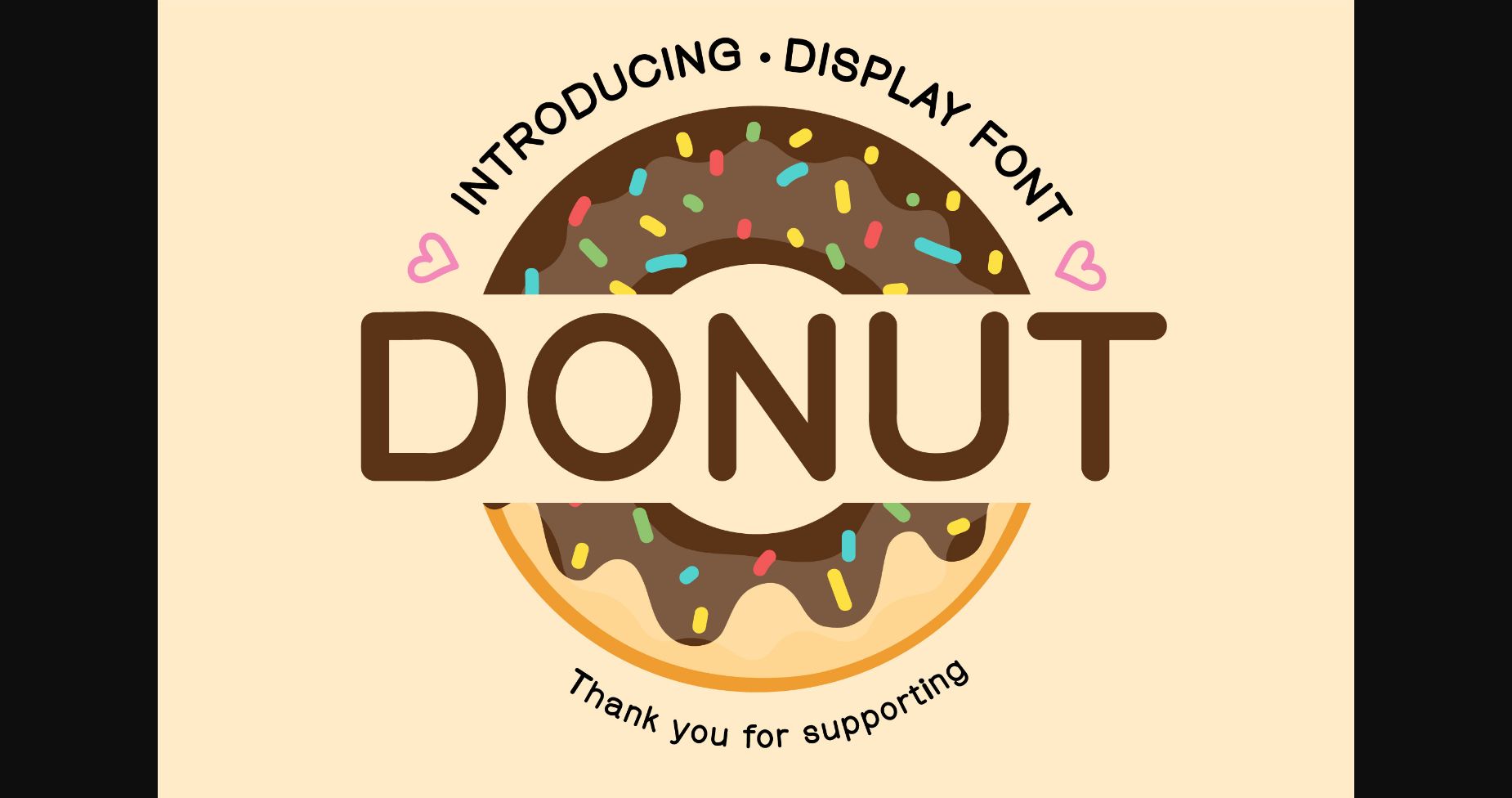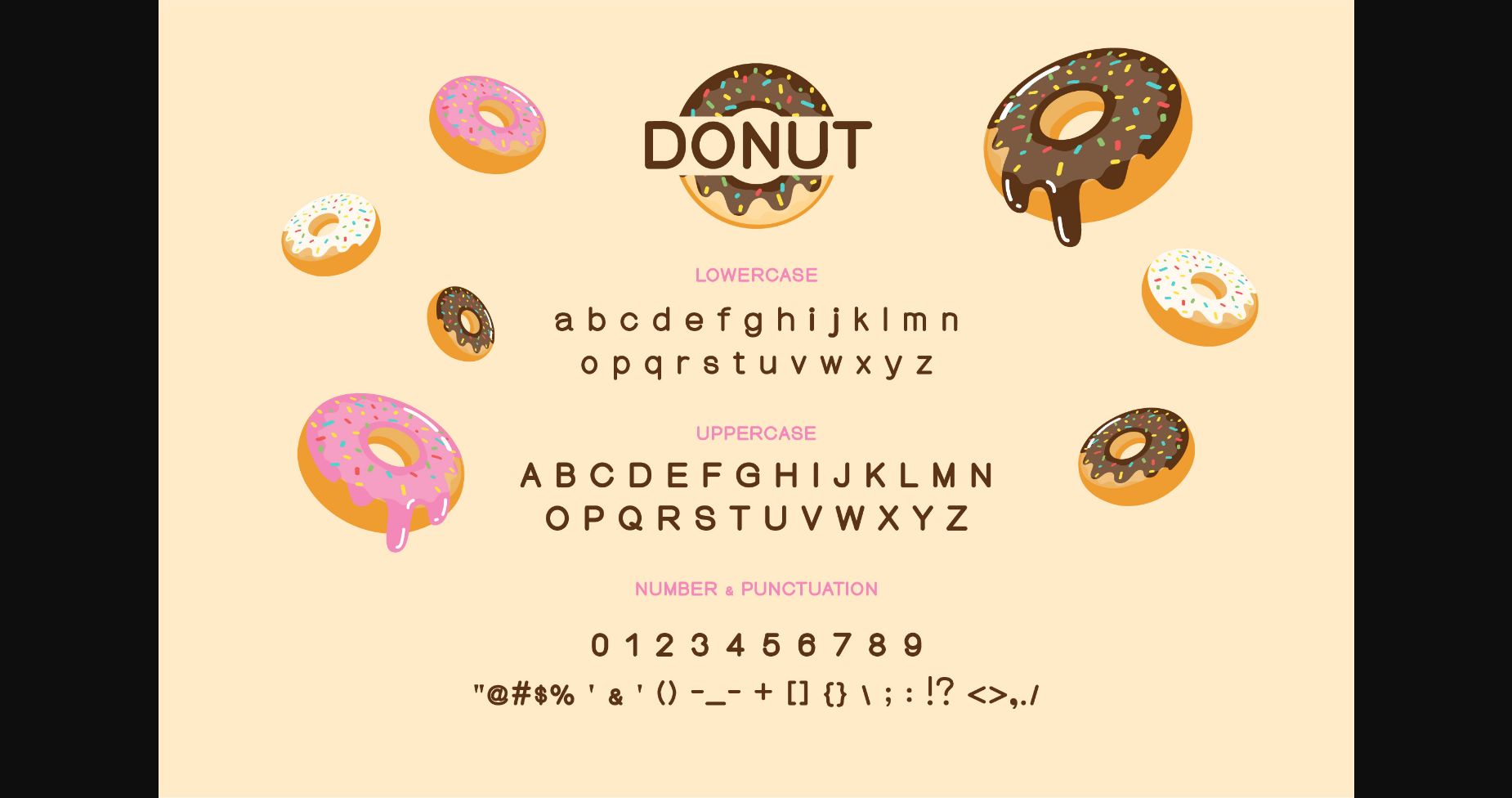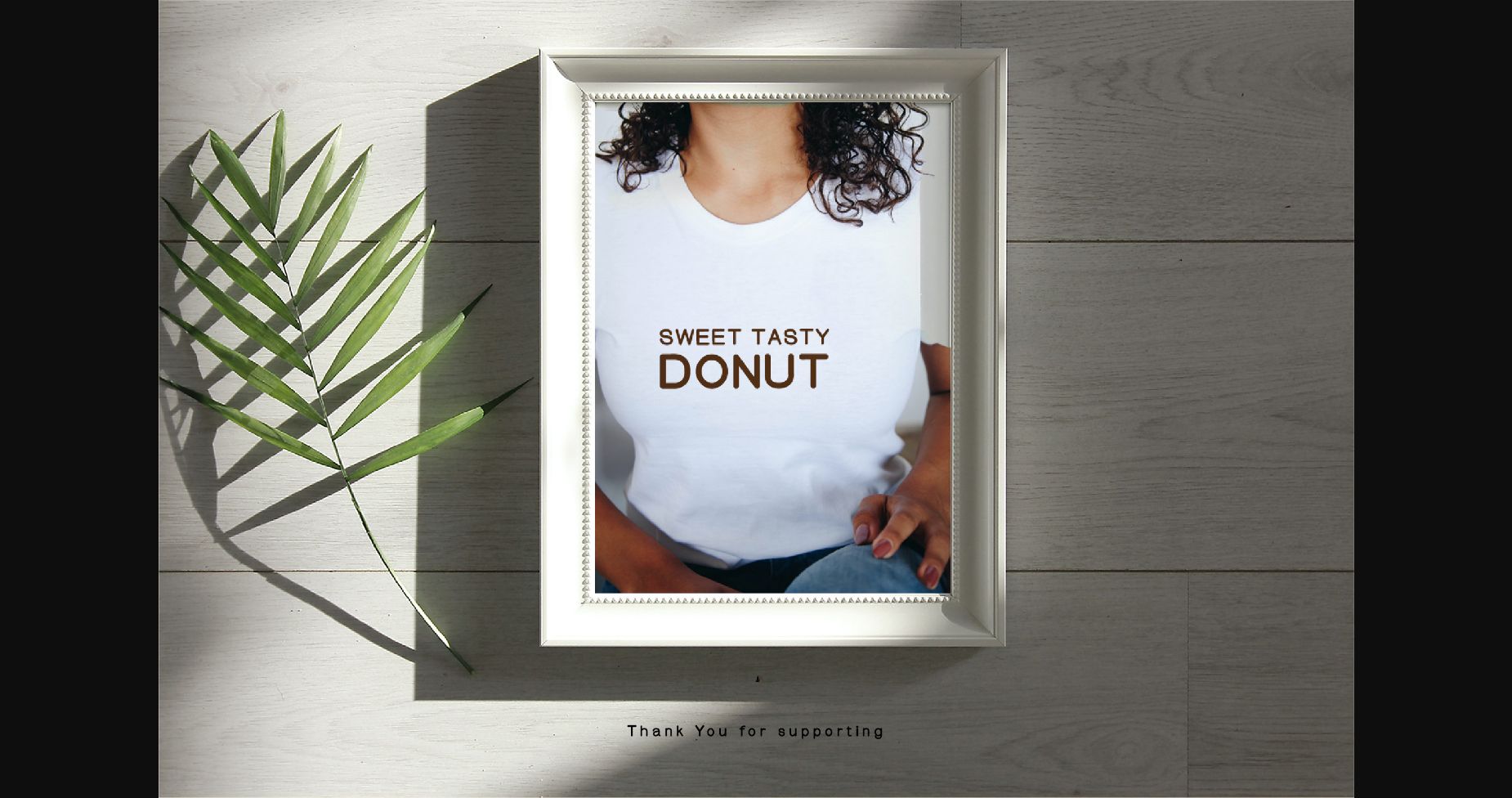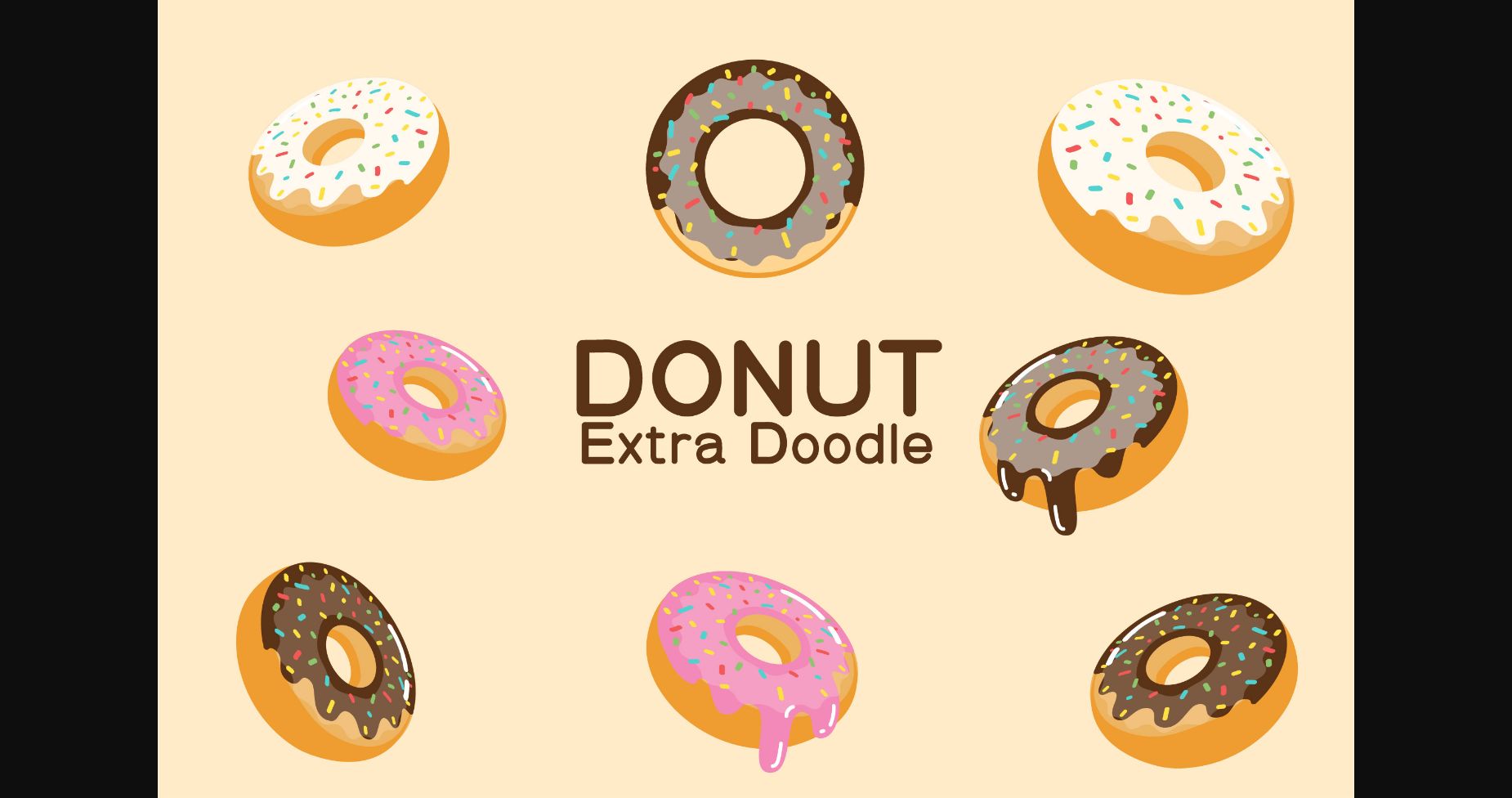
HomeSans Serif FontsDonut Font Sans Serif Fonts Donut Font FacebookXPinterestWhatsApp 1 of 6 ... Donut Font Poster 2... Donut Font Poster 3... Donut Font Poster 4... Donut Font Poster 5... Donut Font Poster 6... About Donut Font Donut is a cute and simple sans serif font that has the potential to enhance any creation! It is perfectly suitable for a wide range of creations such as magazine titles, books, social media posts, statements, and so much more! DOWNLOAD NOW People also explored Mouchoir Monogram Rathrine Font Honey Birds Font Symphony Font Manfolk Font Gumithir Font Farm Made Font Western Bold Font Waxen Font 338 0 TagsDonutDonut Font Previous articleOrion Pro FontNext articleFocus Grotesk Font LEAVE A REPLY Cancel reply Comment: Please enter your comment! Name:* Please enter your name here Email:* You have entered an incorrect email address! Please enter your email address here Website: Save my name, email, and website in this browser for the next time I comment. Personal Use Free Roland Personal Use Free Read more about this font Happy Camping Personal Use Free Read more about this font The Royal Personal Use Free Read more about this font Happy Santa Personal Use Free Read more about this font BLOG How to Cut Any Font on Cricut: Convert a Font to SVG (Free) Turn any font into a clean SVG so it cuts crisp on Cricut - a quick 3-step workflow using a free font-to-SVG tool. How to Install and Use Fonts on Windows, macOS, and Web Projects Free Fonts Risk: Why Free Fonts Can Be Dangerous for Designers Fonts That Capture the Spirit of New York City